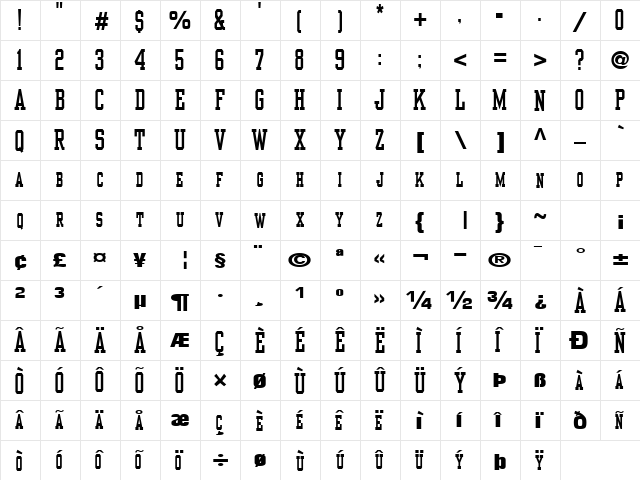
Use Regular
Design Context for Use Typeface
Use offers clean, dependable letterforms without strong stylistic allegiance, making it a practical choice for designers who need flexibility.
Pro Tip: Use Use in both headline and body roles to test its range before committing to a single application.